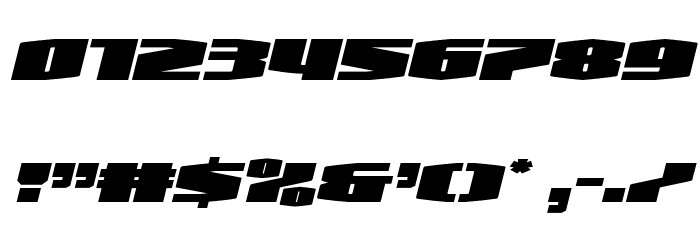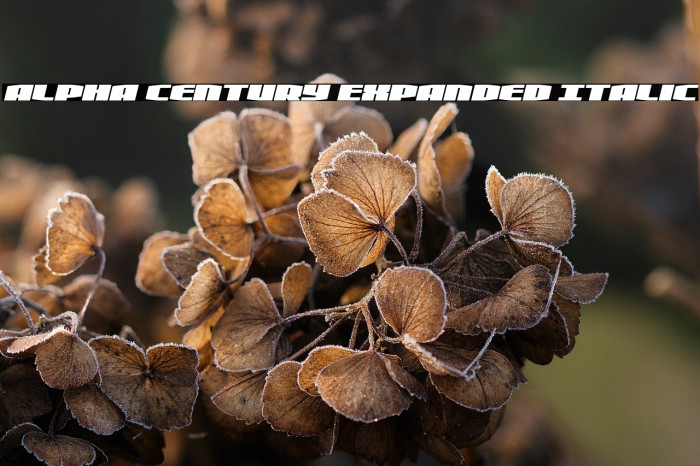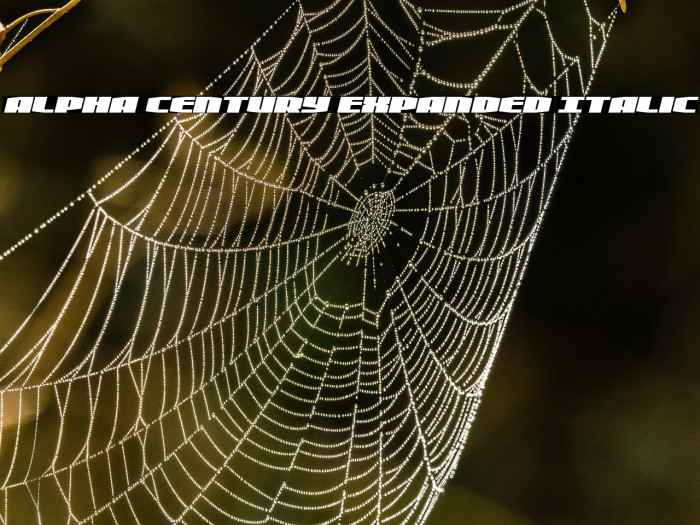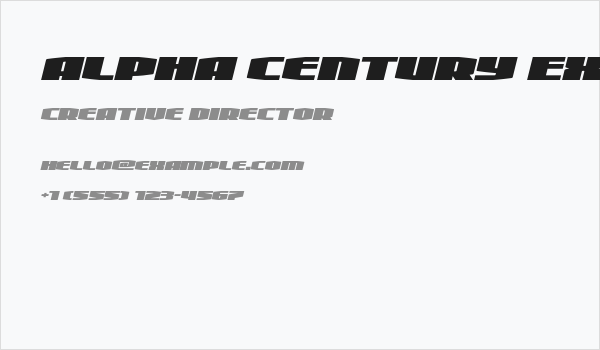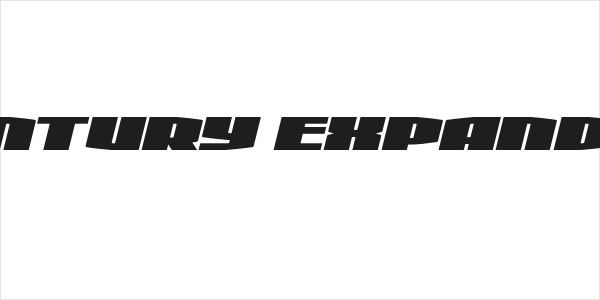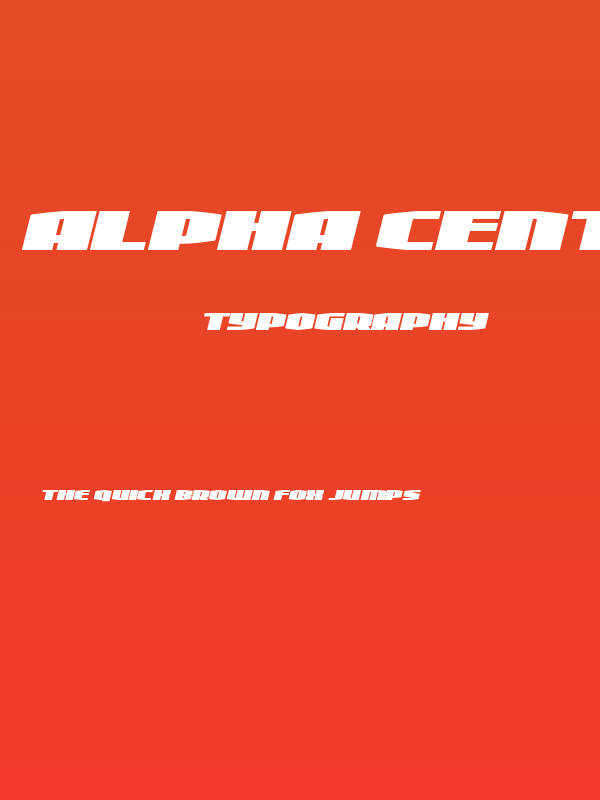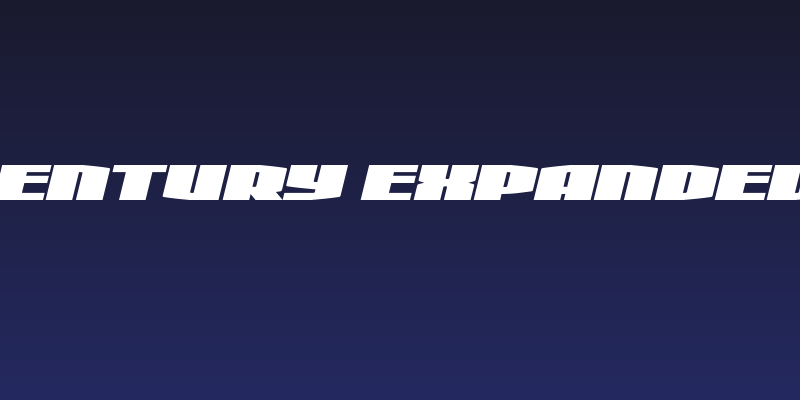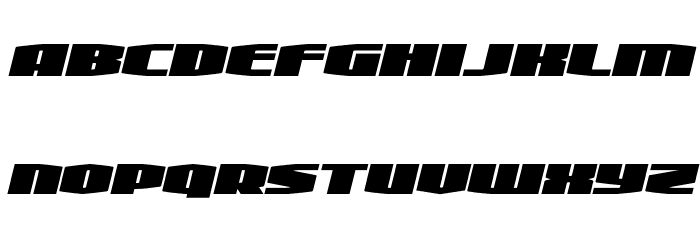
Alpha Century Expanded Italic Font
Alpha Century Expanded Italic Description
This font features a bold and dynamic design with a futuristic flair. The characters are expanded and italicized, giving them a sense of motion and speed. The strokes are thick and consistent, contributing to a strong visual impact. The angular and geometric shapes of the letters create a modern and edgy appearance, suitable for attention-grabbing headlines or logos. The spacing between characters is tight, enhancing the compact and cohesive look of the text. The overall style is distinctly modern and decorative, making it ideal for projects that require a bold statement.
| Proposed Projects | Ideal for sci-fi themed designs, technology branding, video game titles, and modern advertising. |